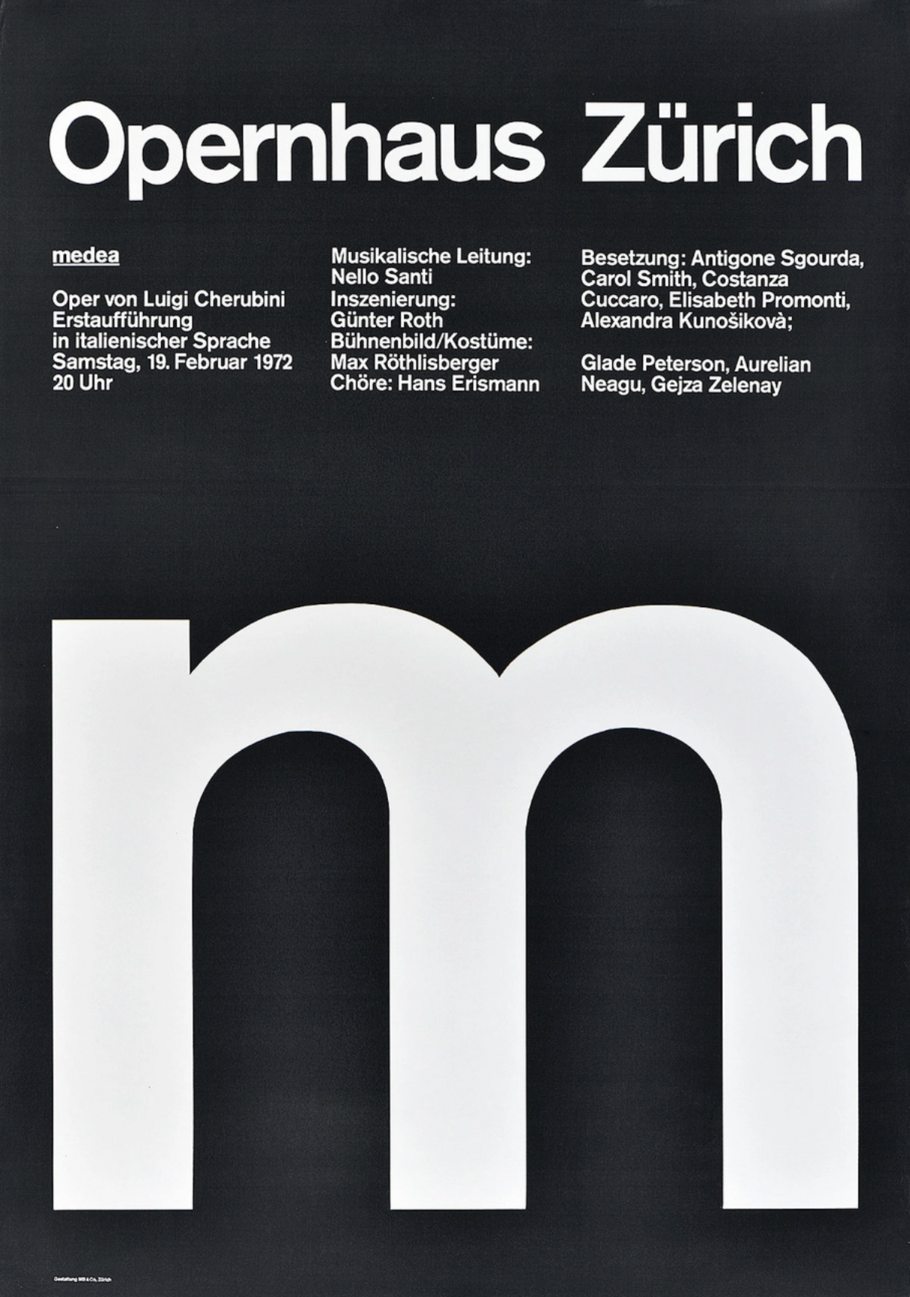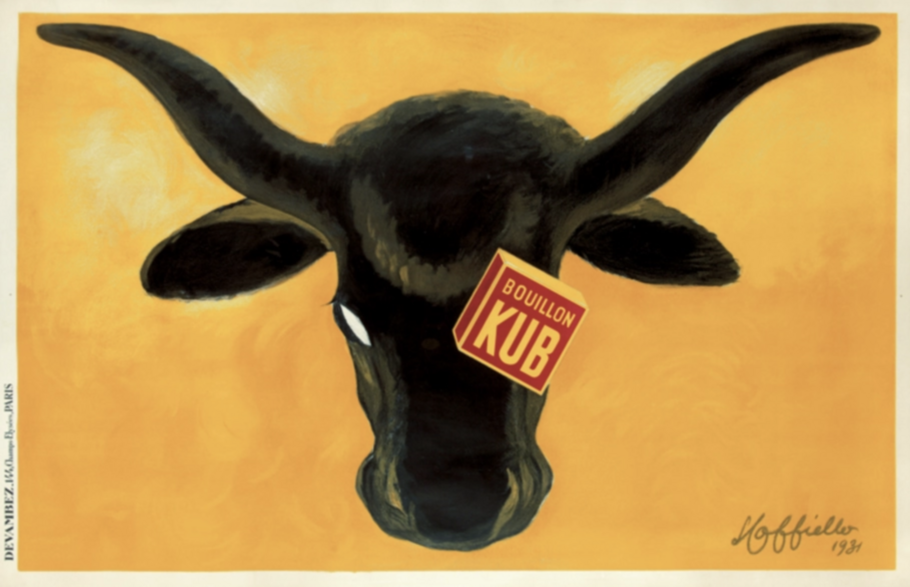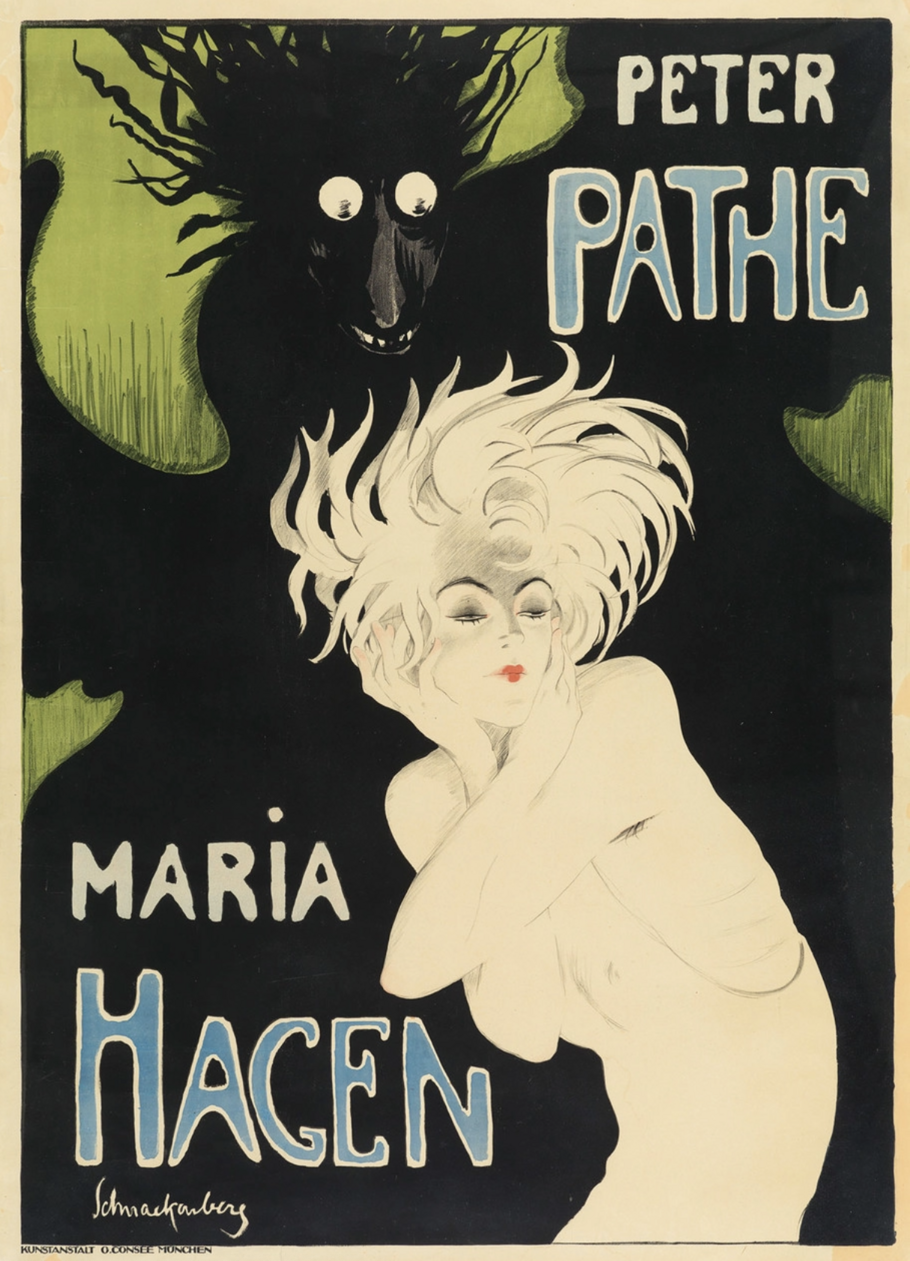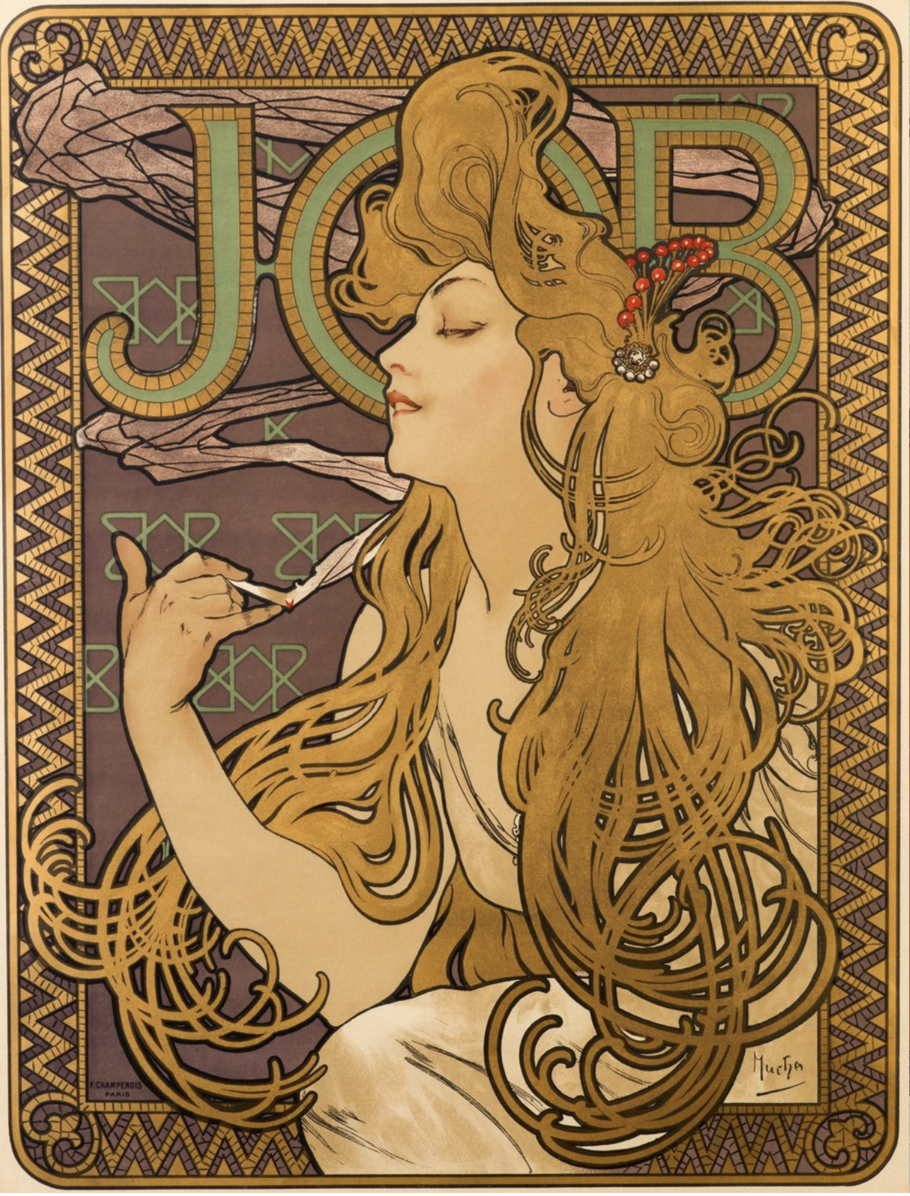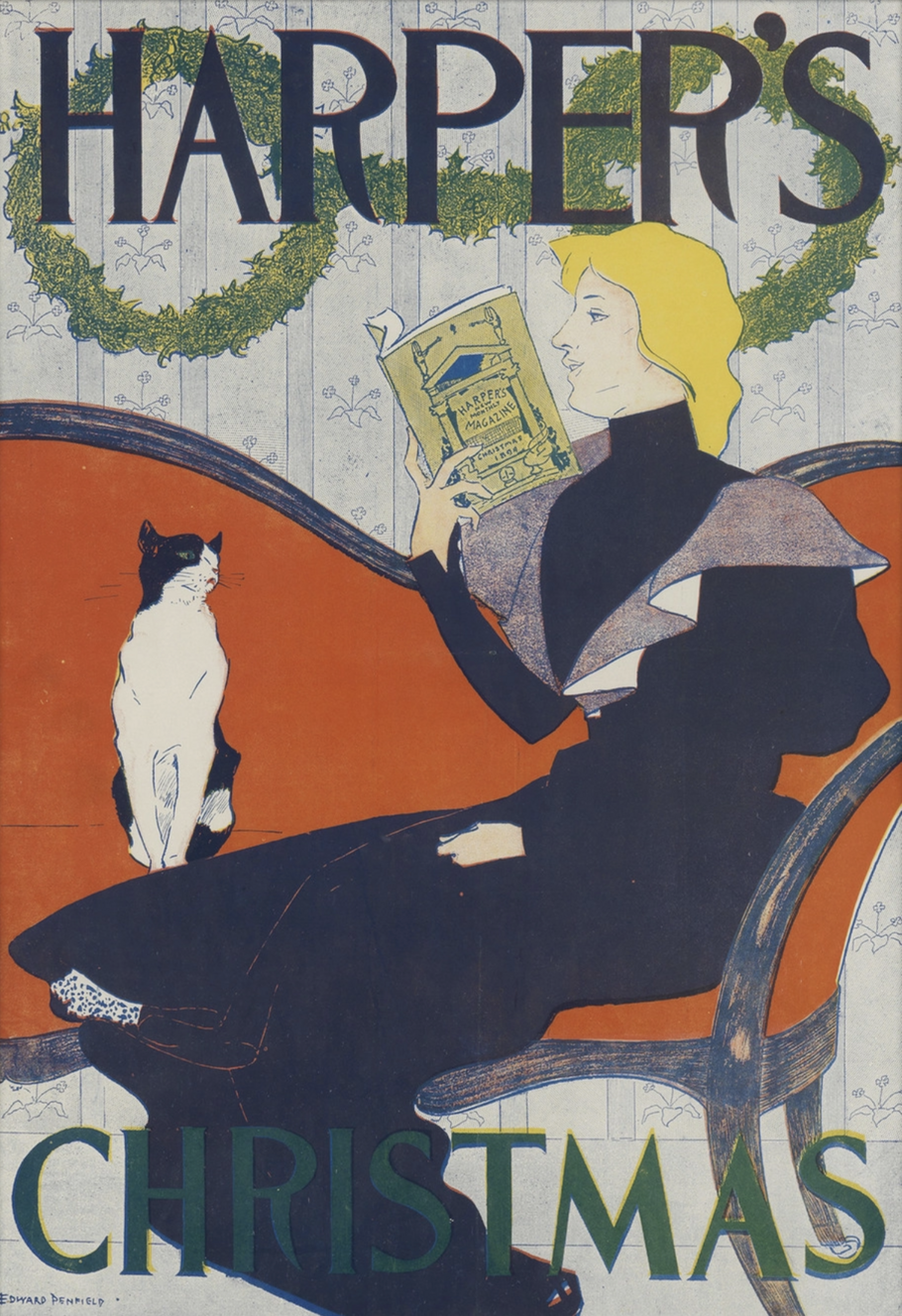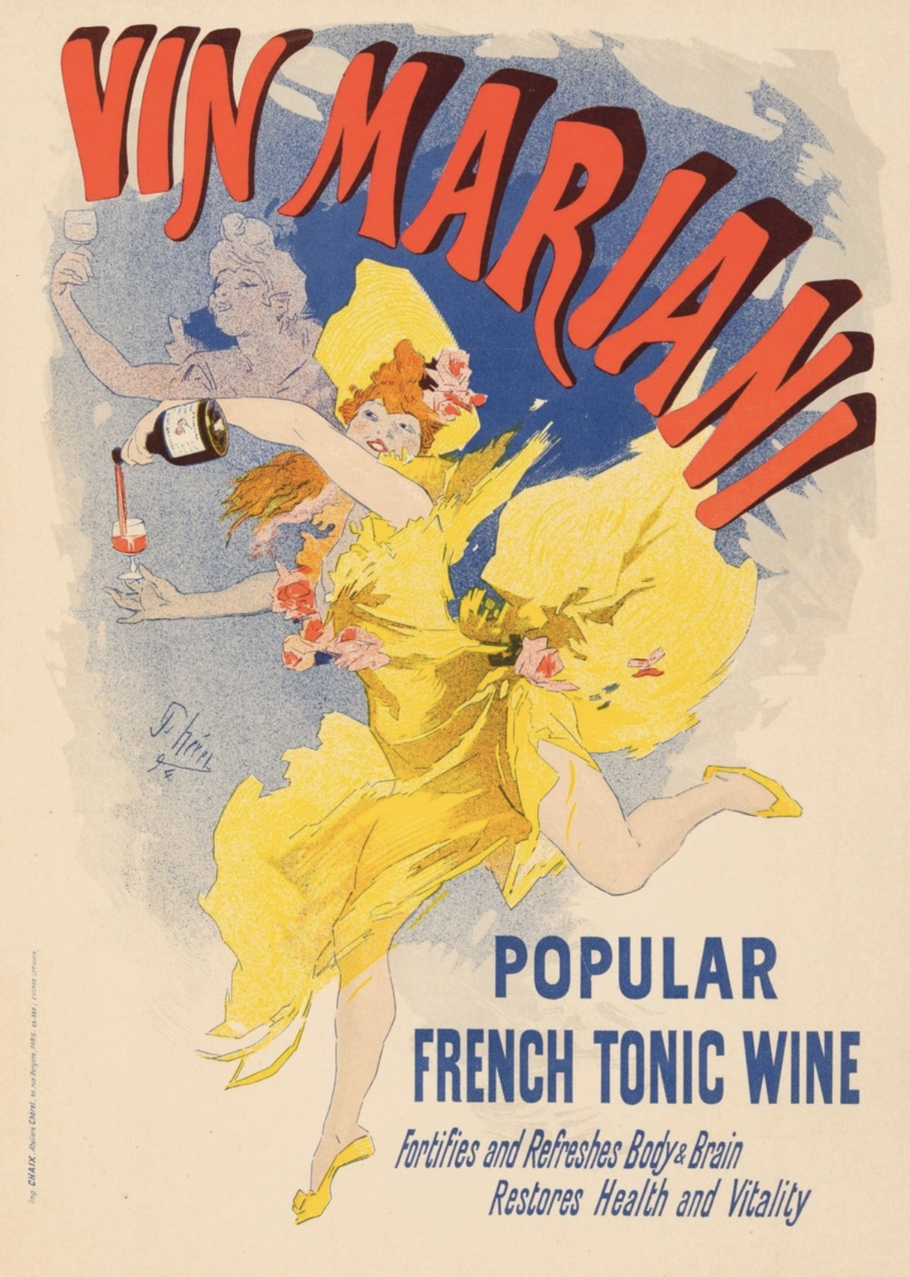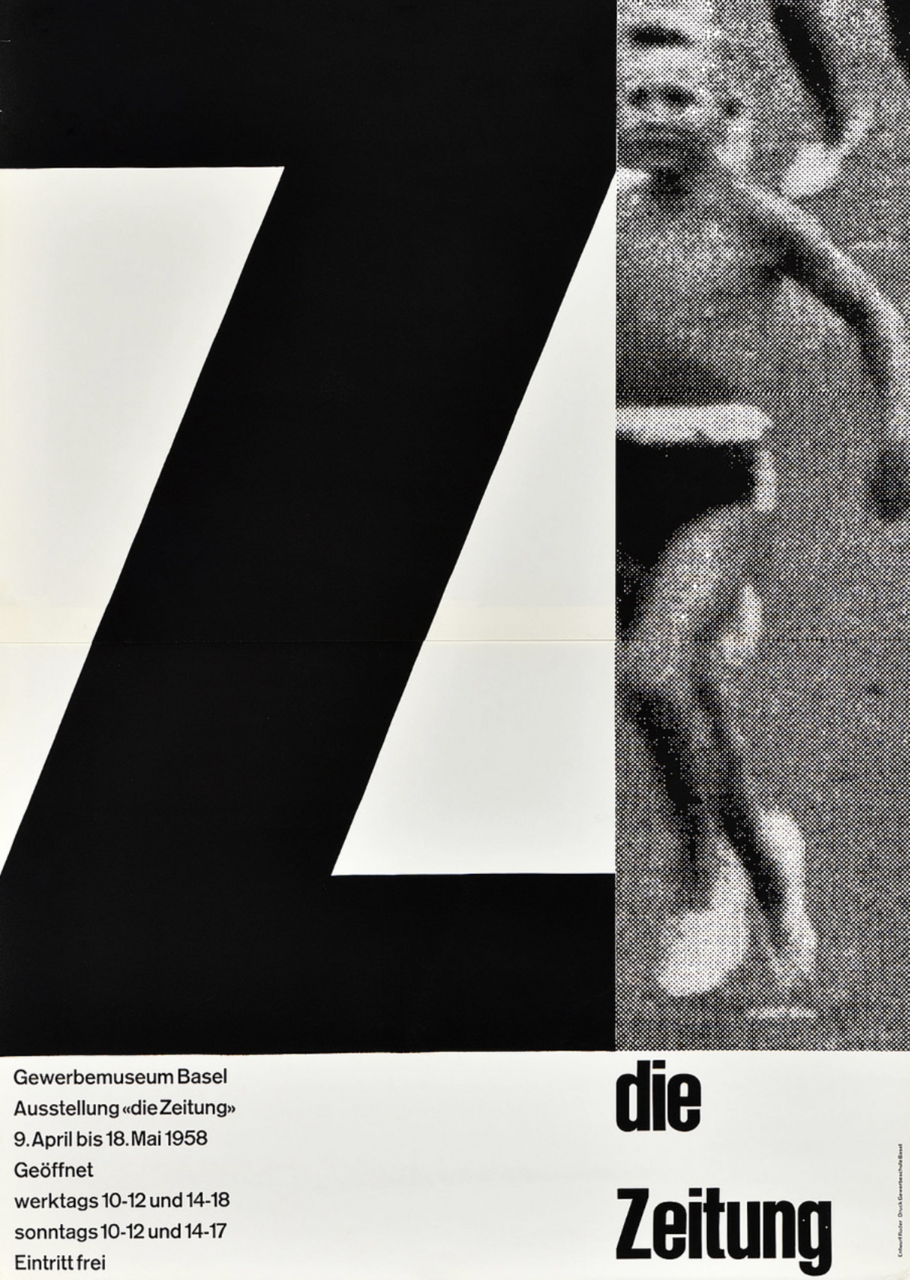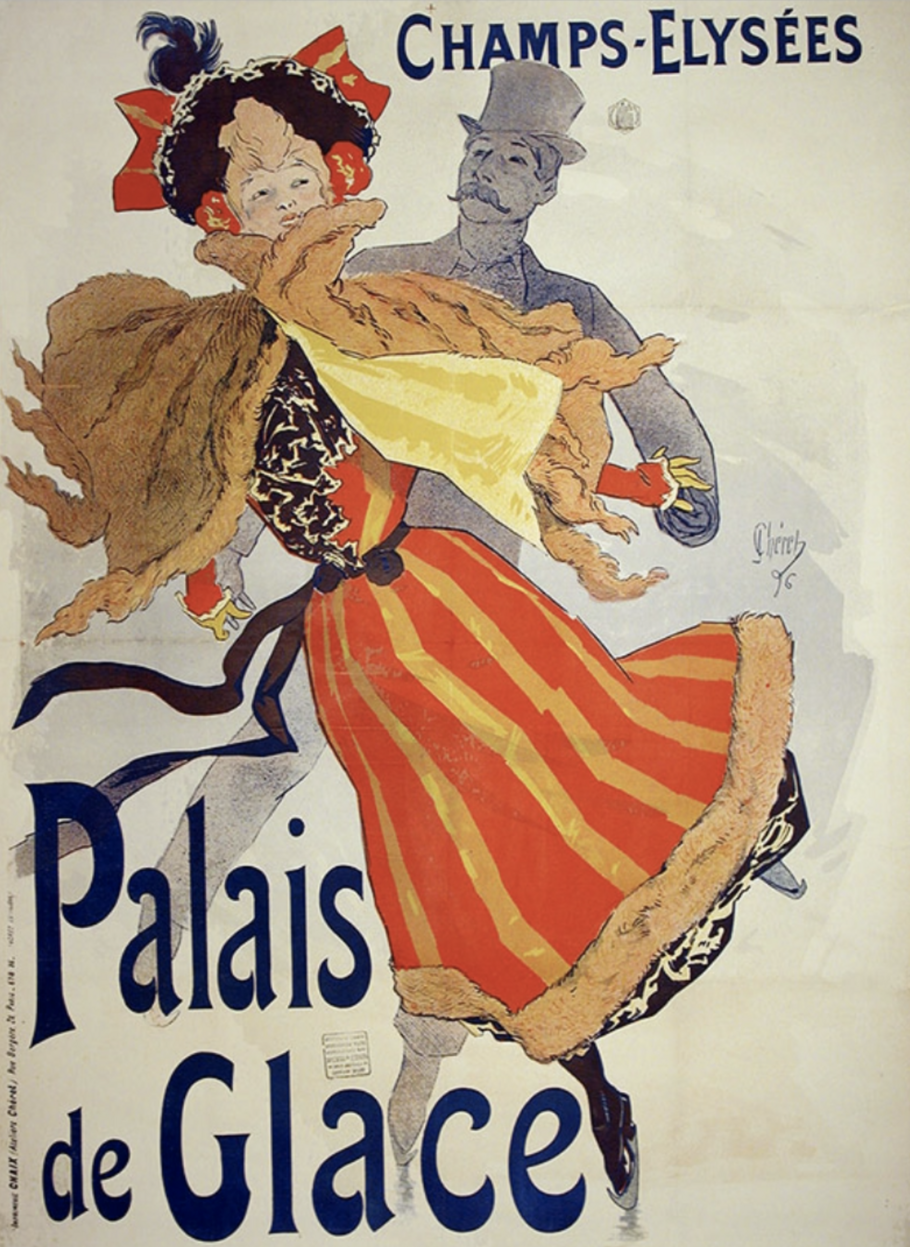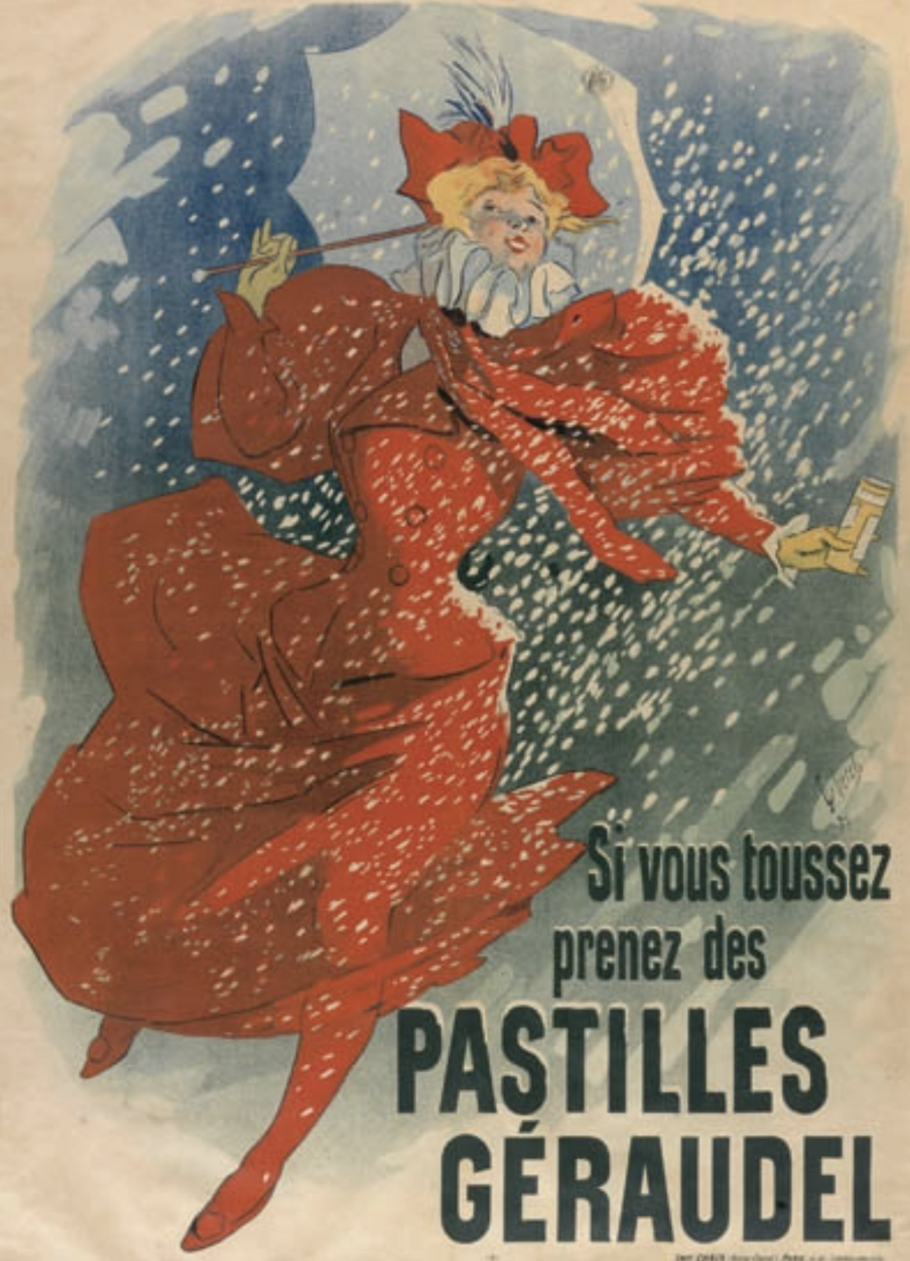
Creative Characters Ep. 9: Angelina Lippert, Posterhouse.
“ A poster is a historic document. A poster tells you what concerts they went to, what products were available at a given time. It tells you things that didn't make the footnotes of a history book ”
Angelina Lippert.
Episode 9 could have easily been a four-parter. That’s what happens when both your guest and your host (Creative Type Director Charles Nix) have an encyclopedic knowledge of their respective fields and love to talk about it.
This week’s guest was Angelina Lippert, Chief Curator at the Posterhouse museum in New York City. Posterhouse is the first museum in the US that is solely dedicated to craft of poster design, and is dedicated to exploring “the enormous impact of posters on society and culture, and how they have been adapted to contemporary use.” It’s a beautiful museum sandwiched between Chelsea and the Flatiron District and absolutely worth visiting next time you’re in NYC.
Angelina and Charles discuss several artists and specific posters in the episode; we’ve included images of (most of) those posters here so you can follow along:
Angelina grew up on the Jersey Shore and went to Smith with the intention of becoming a virologist (“my time would be now!” she tells Nix in the episode) before making a slight left-hand turn into art history. German expressionism and eventually the Russian avant-garde, to be precise. A connection led to an internship at an auction gallery that specialized in posters, and Angelina was hooked.
“What I came to appreciate [about posters] rather quickly was kind of twofold,” she tells Nix. “First, a painting is the expression of an artist’s imagination or whatever they want it to be. It’s beautiful, but it’s not trying to convince you of anything necessarily. A poster is only good if it functions. Having a designer approach a problem and solve it through imagery through design is just really interesting.
“But a poster is also a historic document. A poster tells you how people consumed, what concerts they went to, what products were available at a given time, who was running for political office, who was at war with someone else. It tells you things that didn’t make the footnotes of a history book, the minutiae of society. I find them really interesting because they add texture to the life of an average person, their day-to-day life and history that we would never know about.”